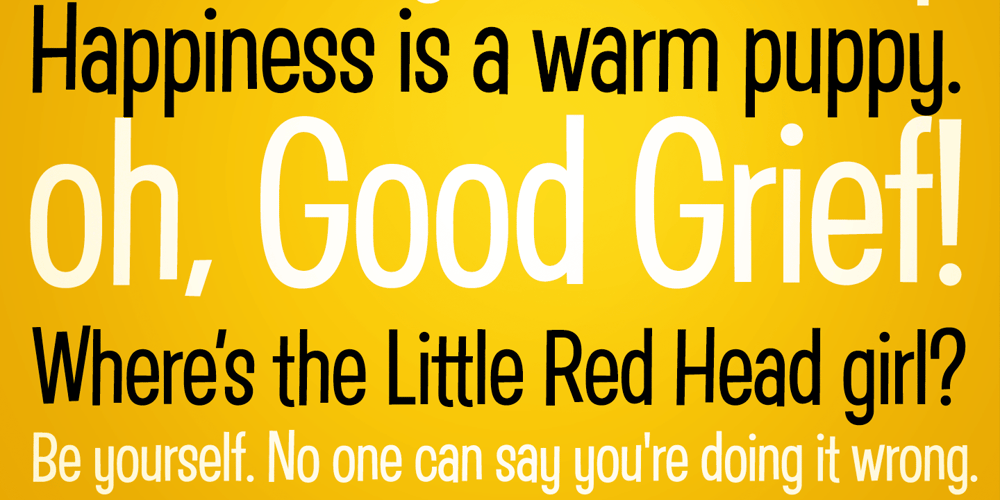
Good Grief PB
Good Grief PB font
Good Grief PB Font Family was designed by Phil Bracco and published by Pink Broccoli. Good Grief PB contains 1 styles and family package options. An ever so slightly off kilter sans-serif, Good Grief started as a digitization of a film typeface called Carmel by LetterGraphics. From there, this fun and friendly typeface was taken from its limited character set and fleshed out to a fully functional typeface. With the legibility of a text typeface, yet the personality of a display type, Good Grief – why haven’t you gotten this fantastic font yet?